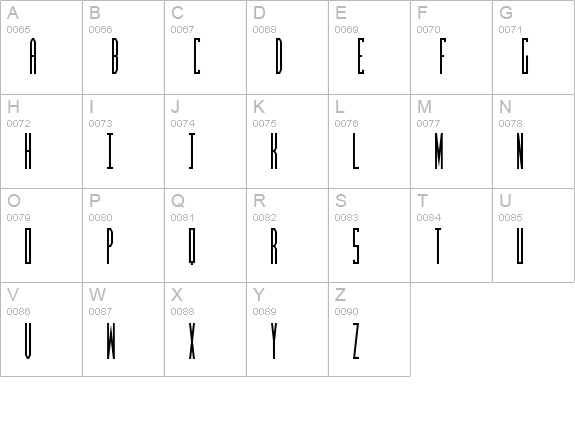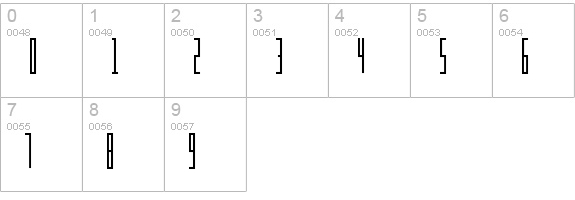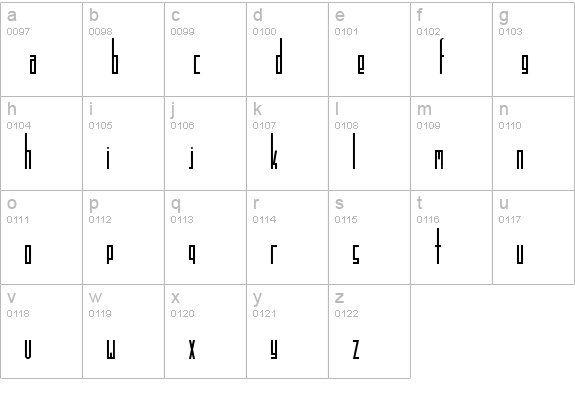
TRUCKRocketry Font Details
TRUCKRocketry font is a bold and dynamic typeface that exudes power and strength. Designed specifically for those seeking a font with a strong and commanding presence, TRUCKRocketry is perfect for any project that needs to make a bold statement. With its sharp edges and sleek lines, TRUCKRocketry captures the essence of modern design. It is a versatile font that can be used for various purposes such as headlines, logos, posters, and more. Its unique character set includes uppercase letters, numbers, punctuation marks, and special symbols, allowing for endless creative possibilities. One of the best things about TRUCKRocketry font is that it is available for free download at FontsMarket.com. This means that anyone can enjoy the power and impact of this remarkable font without having to spend a dime. Whether you are a professional designer looking for a font that stands out or an individual with a creative project in mind, TRUCKRocketry font is the perfect choice. In addition to being freely available, TRUCKRocketry font is also incredibly easy to use. Its clean and well-defined characters make it legible at any size, ensuring that your message will be clear and impactful. The font also supports multiple languages, making it a truly global typeface that can be used by designers and creatives from all over the world. Whether you are working on a branding project, a website design, or a promotional campaign, TRUCKRocketry font will undoubtedly elevate your work to new heights. Its bold and commanding presence will grab attention and leave a lasting impression on your audience. So why wait? Download TRUCKRocketry font for free at FontsMarket.com and unleash the power of this remarkable typeface in your next design project. Embrace its boldness, embrace its strength, and let TRUCKRocketry font take your creativity to the next level.